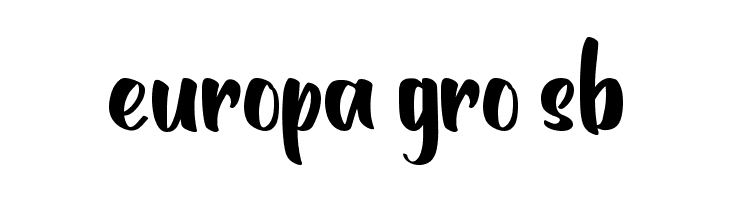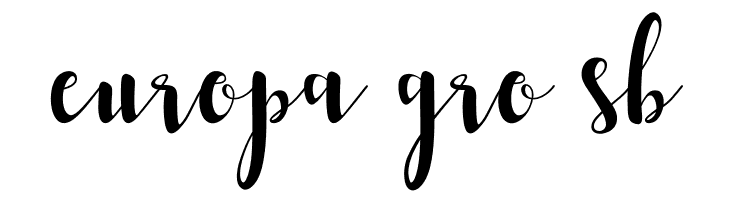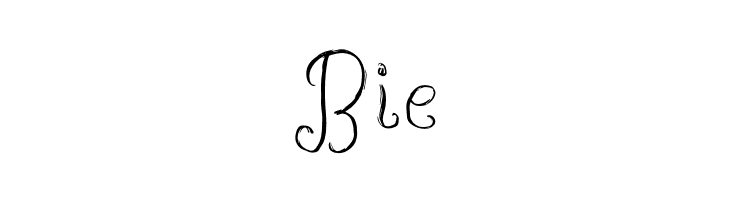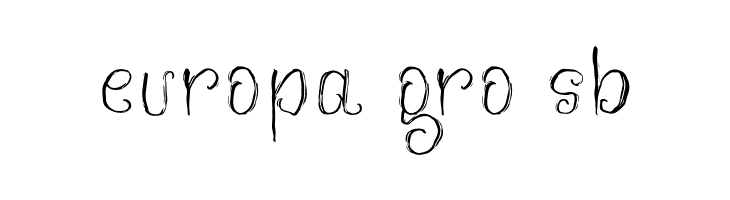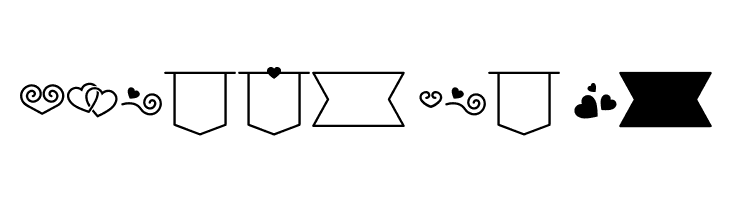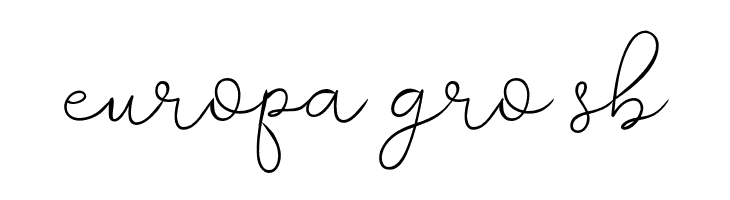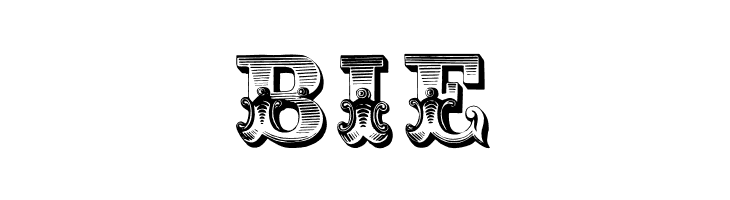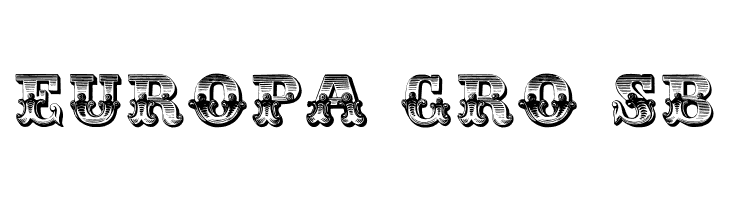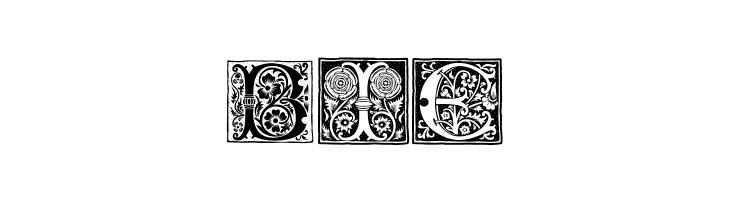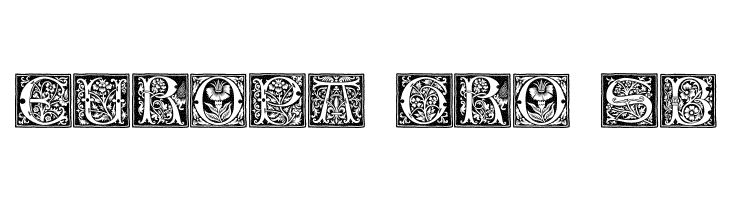
A whimsical collection of decorative elements featuring hearts, arrows, and banners.
An ornate, decorative font with intricate floral motifs and a vintage style.
An ornate, vintage-style decorative font with intricate detailing.
An elegant script font with flowing, cursive style and intricate flourishes.
A graceful, flowing script font with elegant, cursive strokes.
A romantic and sophisticated script font with flowing, interconnected letters.
A whimsical, handwritten font with elongated, irregular letterforms.
An elegant and sophisticated cursive script font with flowing curves and delicate loops.
A bold, expressive handwritten font with smooth curves and thick strokes.
A whimsical, hand-drawn font with curly, uneven strokes and a playful aesthetic.